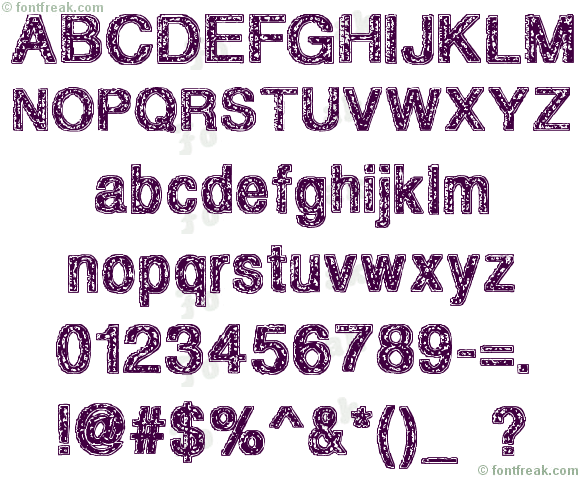
Degrading Morals
About Degrading Morals
Degrading Morals by Gemfonts is an intriguing display font that falls into the decorative category. Its unique design features a playful, slightly distorted aesthetic that captures attention, making it a standout choice for various creative projects. The font showcases a medium stroke weight with a noticeable contrast that adds depth to each character. The spacing between letters is well-considered, providing legibility while maintaining a quirky character. With its artistic flair, Degrading Morals incorporates subtle decorative elements that give it a distinct personality, perfect for projects looking to convey a sense of whimsy or irreverence.
This font is ideal for a range of specific use cases. It works wonderfully for movie posters, especially for indie films or genres that embrace a quirky, offbeat narrative. Wedding invitations can also benefit from its unique charm, adding a touch of personality to announcements and save-the-dates. Restaurant menus, particularly for establishments with a casual or eclectic vibe, will find Degrading Morals to be an excellent choice, as it can evoke a sense of fun and creativity. Additionally, content creators on social media platforms can use this font to craft eye-catching graphics that stand out in crowded feeds.